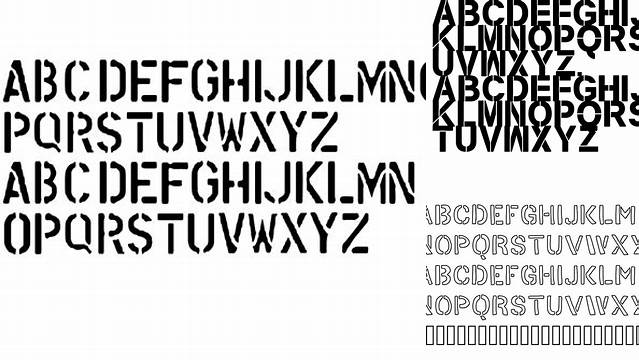
Hey guys! Are you on the hunt for that perfect font to give your designs a unique, military-inspired edge? Look no further! In this comprehensive guide, we'll dive deep into the world of Arial Stencil font free download TTF, exploring everything you need to know about this versatile typeface. We'll cover where to find it, how to use it effectively, and even explore some creative applications. So, buckle up and let's get started on this font-tastic journey!
1. What is Arial Stencil Font?
Arial Stencil is a unique variation of the classic Arial typeface, characterized by its distinctive stencil cuts. These gaps within the letterforms create a rugged, industrial, and somewhat military feel, making it a popular choice for designs that need to convey strength, durability, or a sense of history. The font maintains the clean lines and readability of the original Arial, but with an added touch of character. The Arial Stencil font is a sans-serif typeface, meaning it lacks the small decorative strokes (serifs) found at the ends of letterforms in fonts like Times New Roman. This gives it a more modern and streamlined appearance, even with the stencil effect. The stencil design elements are crucial in defining its visual presence. These intentional breaks in the letterforms not only contribute to its aesthetic appeal but also enhance its practicality in contexts where physical stenciling might be employed. For instance, in industrial settings, the Arial Stencil font's design ensures legibility even when applied using stencil tools on various surfaces. This blend of functionality and aesthetics makes it a favorite among designers and hobbyists alike. When seeking an Arial Stencil font free download TTF, users are often drawn to its versatility. It’s equally at home in bold headlines and shorter blocks of text, though extensive bodies of text might benefit from a font with fewer visual interruptions for optimal readability. The unique character of Arial Stencil makes it stand out, ensuring that any design incorporating it carries a distinct and memorable style. In digital applications, the Arial Stencil font renders sharply and cleanly, maintaining its distinctive stencil cuts even at smaller sizes. This consistency is crucial for maintaining the integrity of the design across various platforms and media. Furthermore, the availability of Arial Stencil font in the TTF (TrueType Font) format ensures compatibility across a wide range of operating systems and design software, making it a universally accessible option for designers. Therefore, whether you're working on a military-themed poster, an industrial-chic logo, or a creative project that demands a touch of ruggedness, Arial Stencil provides a reliable and visually appealing choice.
2. Key Characteristics of Arial Stencil
Let's dive deeper into the key characteristics of Arial Stencil. One of the most striking features of Arial Stencil font is its distinct stencil effect. This is achieved by incorporating deliberate gaps and breaks within each character, giving the impression that the letters were created using a stencil. This effect not only enhances the visual appeal but also adds a layer of practicality, particularly in settings where the font might be used for actual stenciling purposes. Another key characteristic is its strong, bold presence. Arial Stencil commands attention, making it ideal for headlines, titles, and logos where you want to make a statement. The bold nature of the font ensures that it stands out, even from a distance, which is crucial for signage and other applications where visibility is paramount. Despite its bold appearance, Arial Stencil retains a sense of readability. The design carefully balances the stencil effect with the underlying structure of the Arial typeface, ensuring that the letters remain easily recognizable. This readability is essential for maintaining clarity in your designs, whether you're working on a poster, a website, or a printed document. The font is also highly versatile. While it's often associated with military and industrial themes, Arial Stencil can be used in a wide range of applications. Its unique aesthetic makes it suitable for everything from branding and advertising to web design and print media. The adaptability of Arial Stencil makes it a valuable addition to any designer's toolkit. Furthermore, the Arial Stencil font typically features a comprehensive character set, including uppercase and lowercase letters, numbers, punctuation marks, and symbols. This extensive character set allows you to use the font in a variety of contexts without worrying about missing characters. The availability of a full range of characters ensures that you can express your message clearly and effectively. When considering an Arial Stencil font free download TTF, it's important to note that the quality of the font can vary. High-quality versions of Arial Stencil maintain consistent letterforms and kerning (the spacing between letters), ensuring a professional appearance in your designs. It’s always a good idea to preview the font and test it in your design software before finalizing your choice. The font's visual characteristics, such as the thickness of the strokes and the shape of the stencil cuts, contribute significantly to its overall impact. These design elements are carefully considered to create a font that is both aesthetically pleasing and functional. In summary, the key characteristics of Arial Stencil – its stencil effect, bold presence, readability, versatility, and comprehensive character set – make it a standout choice for a wide range of design projects. Whether you're aiming for an industrial vibe, a military aesthetic, or simply a unique and eye-catching typeface, Arial Stencil delivers. The Arial Stencil font free download TTF provides an accessible way to incorporate these features into your creative endeavors.